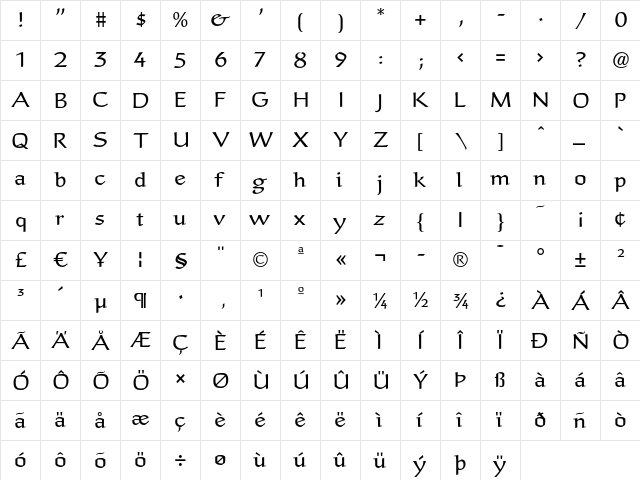
Anasdair LT Std Regular Regular
| Foundry | Linotype GmbH |
| Designer | Richard Yeend |
Design Context for Anasdair LT Std Regular Typeface
Anasdair LT Std Regular takes a measured approach to typography — its balanced proportions and neutral character make it a reliable workhorse for both digital and print work. The delicate stroke weight brings airiness and refinement to layouts.